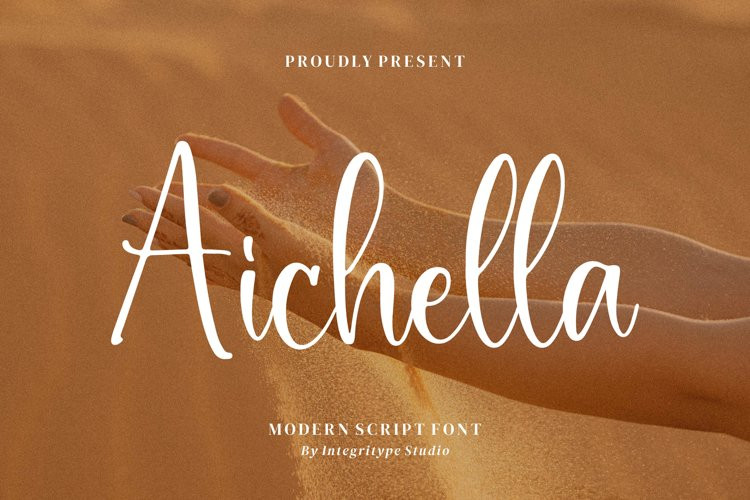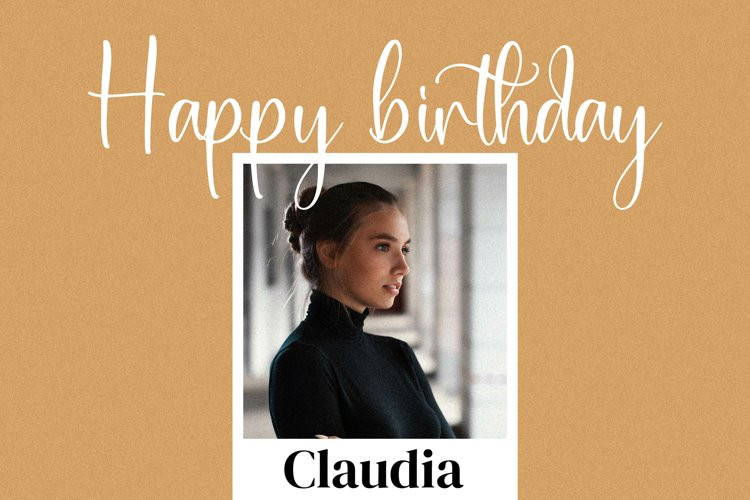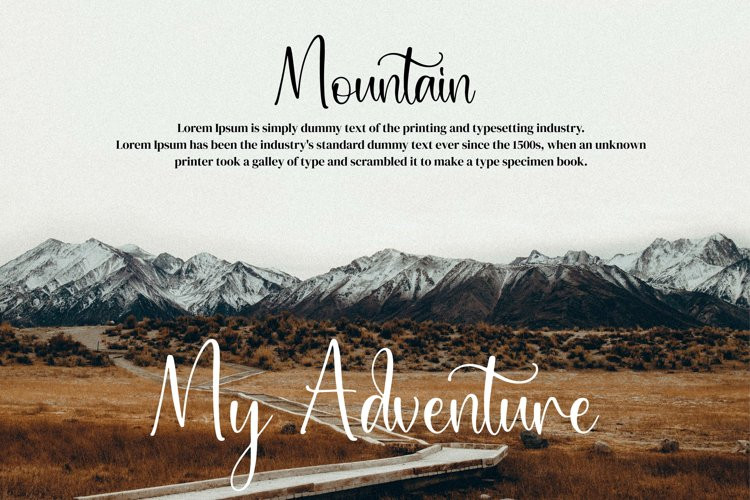
Aichella Font
Aichella FontAichella – Modern Script Font, from Integritype Studio, is a premium Calligraphy Font , suitable for any projects such as: logos, branding projects, homeware designs, product packaging, mugs, quotes, posters, shopping bags, t-shirts, book covers, name card, invitation cards, greeting cards, label, photography, watermark, special events, and all your other luxury projects that need a premium signature taste.